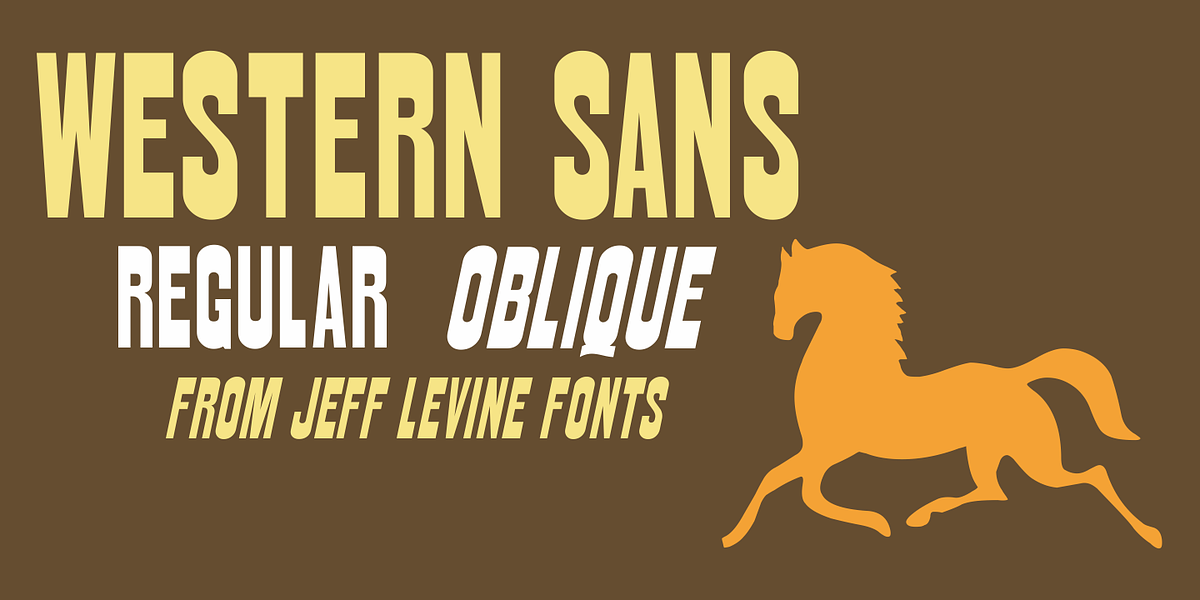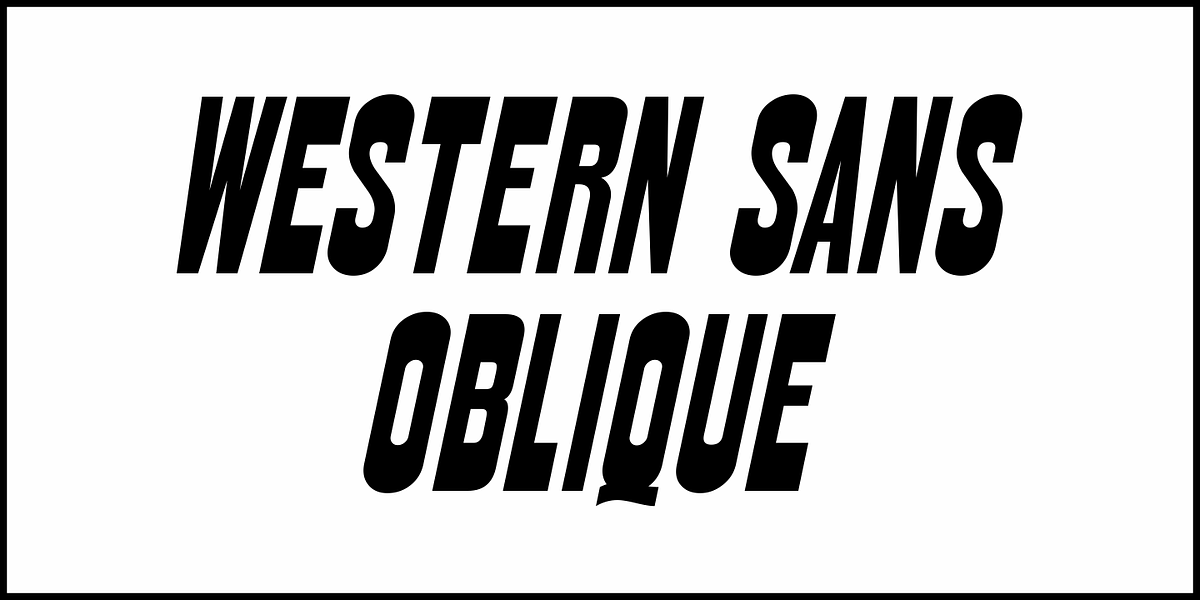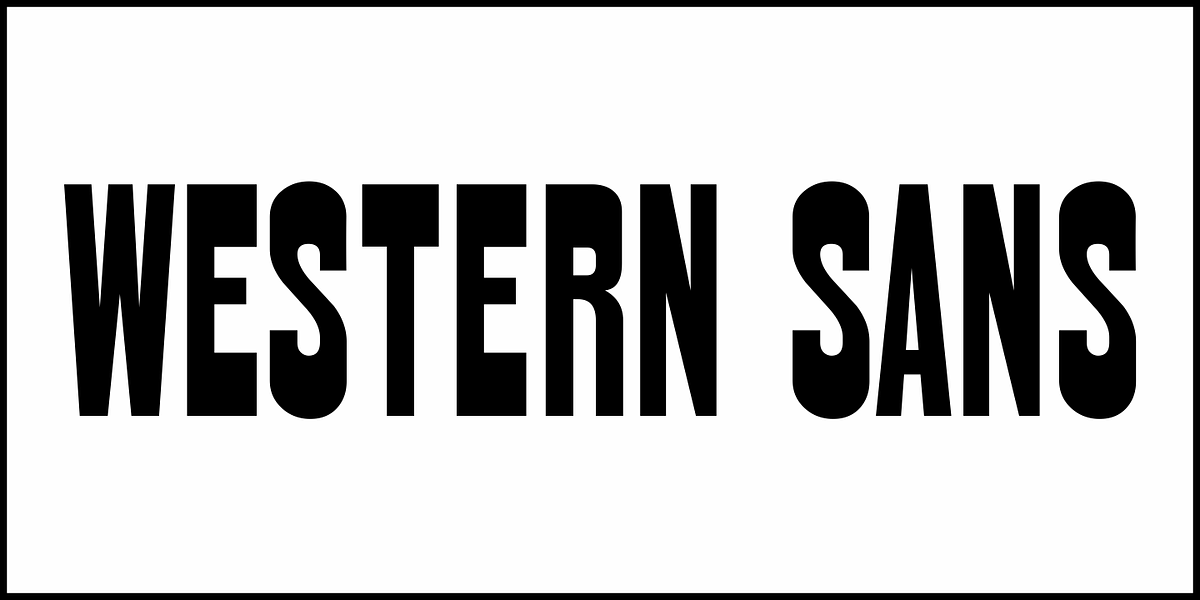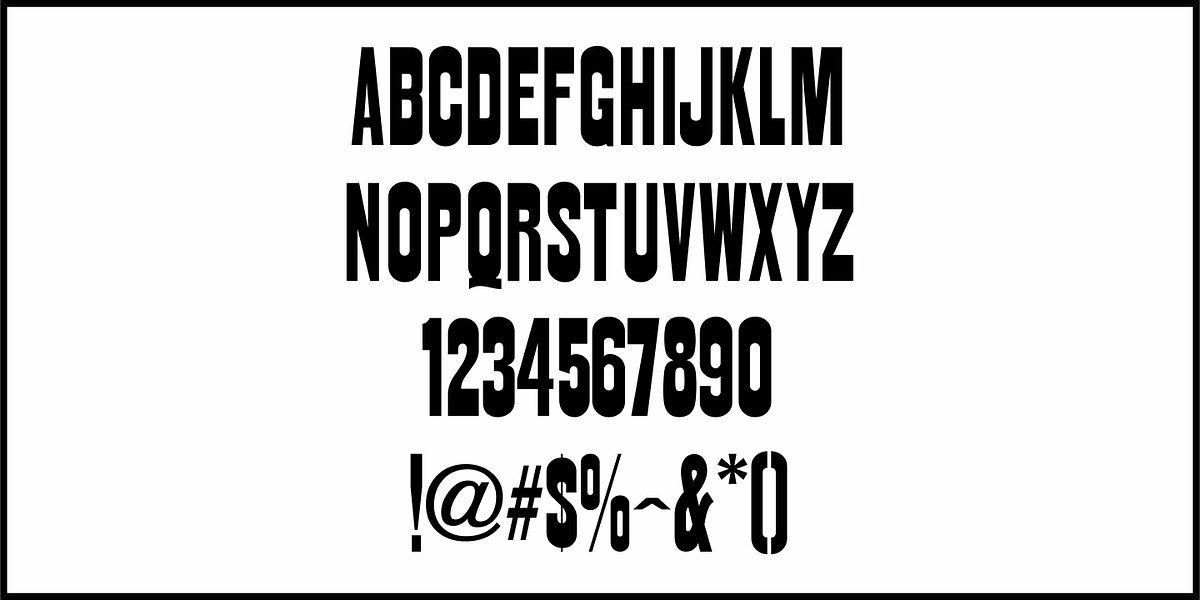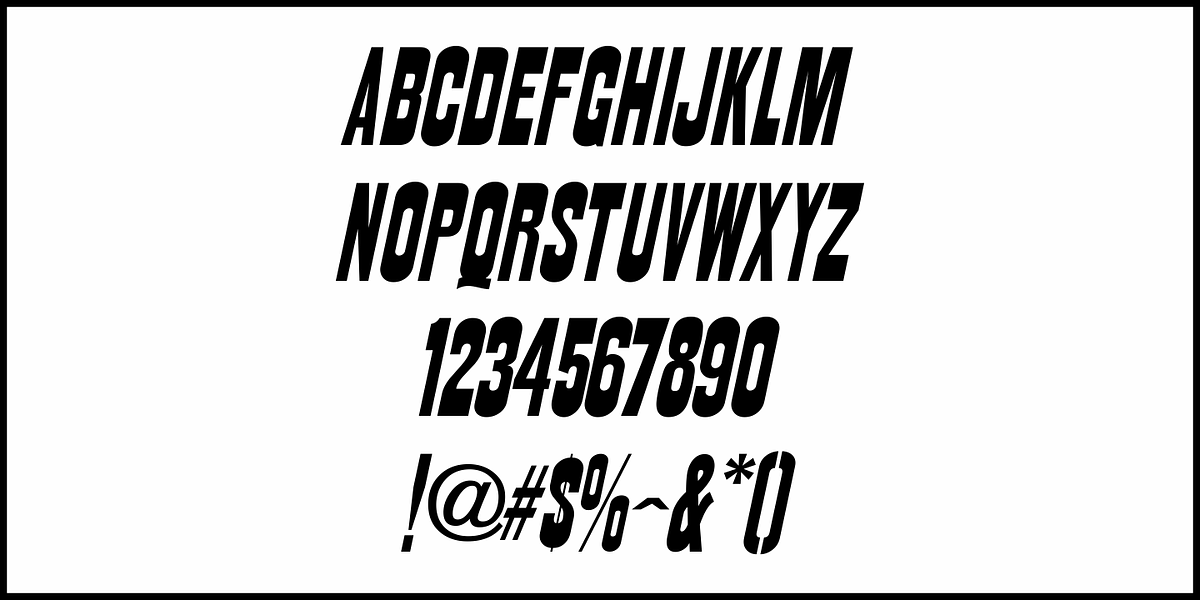
Western Sans JNL
Take a classic Western wood type where the horizontals are thicker than the verticals and remove the slab serifs… The result is Western Sans JNL, which is available in both regular and oblique versions.